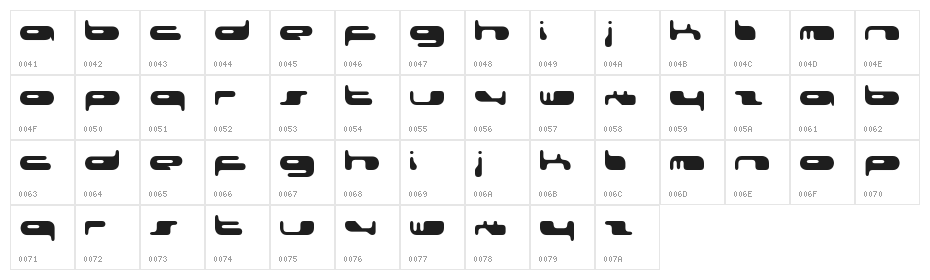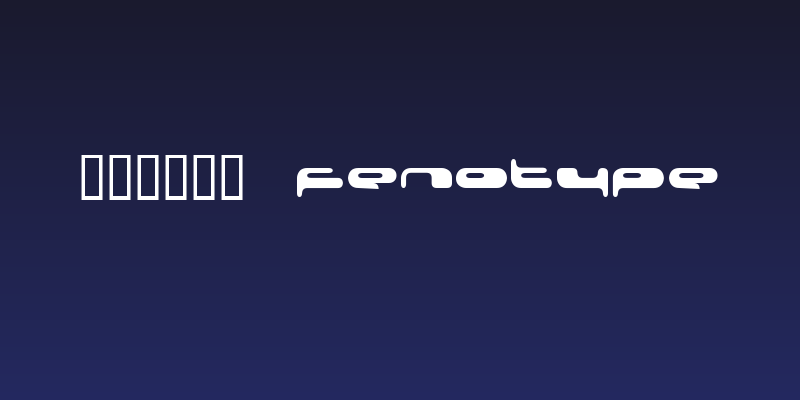
080203 Fenotype Font
080203 Fenotype Description
This font features a futuristic and geometric design, characterized by its bold and rounded letterforms. The characters have a unique, almost stencil-like appearance with consistent thickness throughout, giving it a modern and tech-inspired look. The uppercase and lowercase letters maintain a uniform style, with smooth curves and minimalistic details. The numbers and special characters follow the same design principles, ensuring a cohesive appearance across all glyphs. This font's distinct style makes it stand out, ideal for projects that require a contemporary and innovative touch.
| Proposed Projects | Ideal for technology branding, sci-fi themed designs, video game interfaces, and modern advertising. |